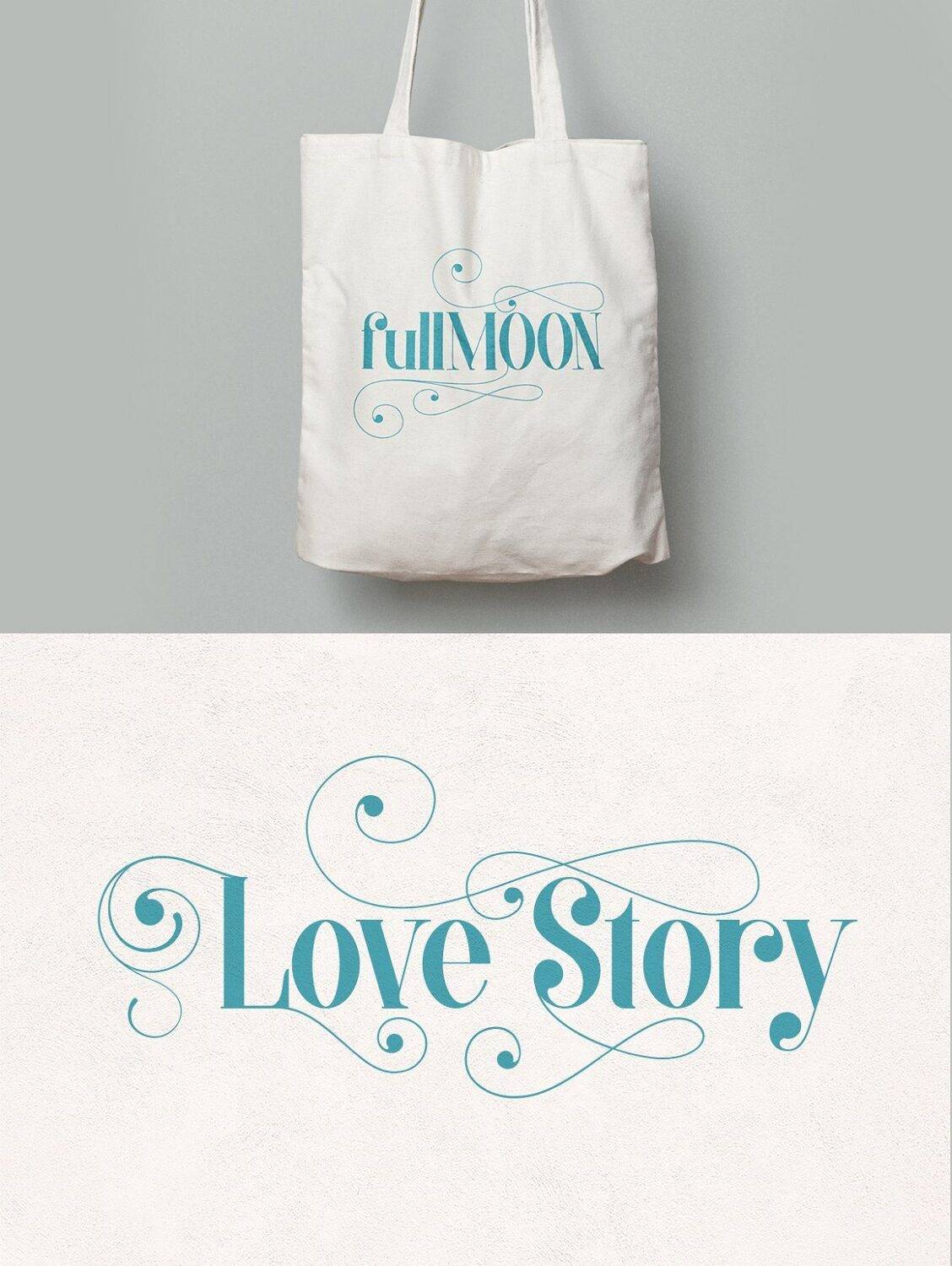
Morva is a stylish serif font characterized by its tall, condensed letterforms and strong contrast between thick and thin strokes, creating an elegant and dramatic appearance. With its sharp serifs and unique details like the curved tail on the Q and distinctive ampersand, it exudes a sophisticated, high-fashion vibe perfect for luxury branding, editorial headlines, and upscale packaging. Morva’s refined proportions and eye-catching design make it ideal for use where a bold yet classy statement is needed.
Morva Font
About Morva Font
| Font family | Morva Font |
| Designer | Alit Suarnegara |